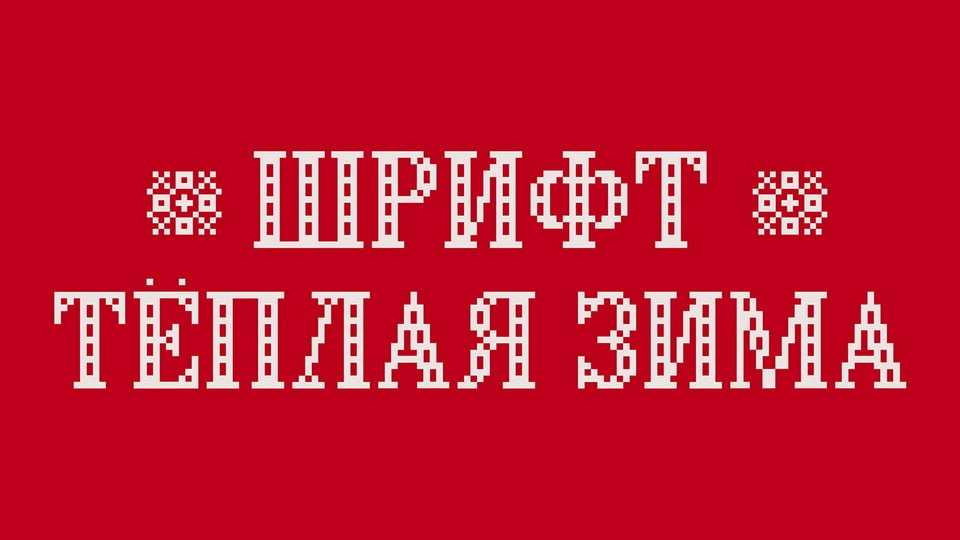
Download Sweater Winter font, a decorative typeface developed based on embroidery on winter sweaters and can be used for logos, souvenirs, clothing, printing products – the practice of application is wide.
Designer: Pasha Skvortsov